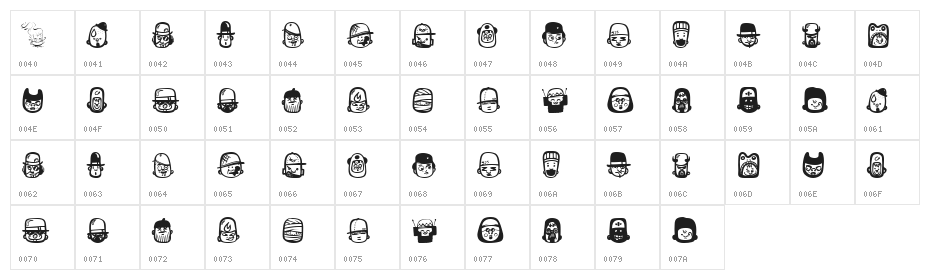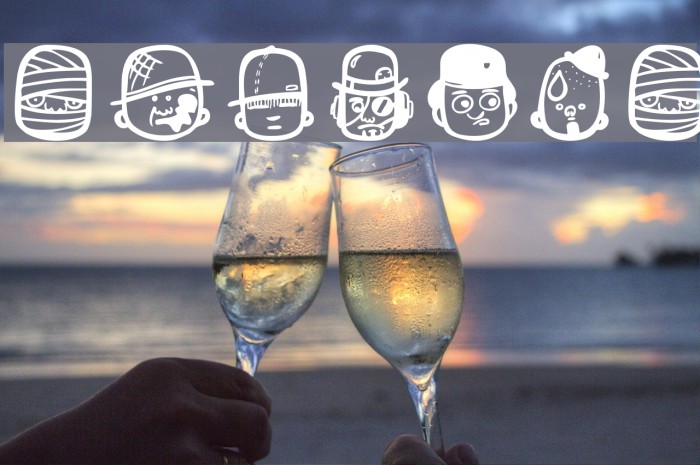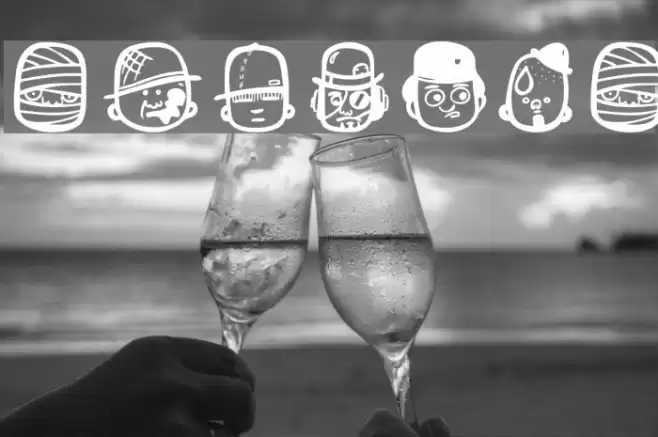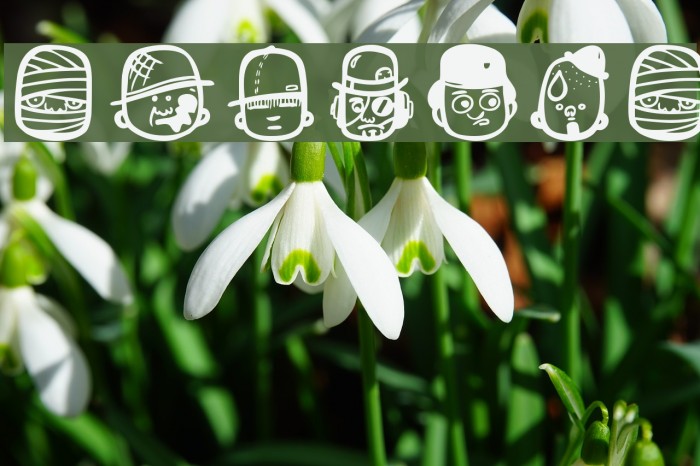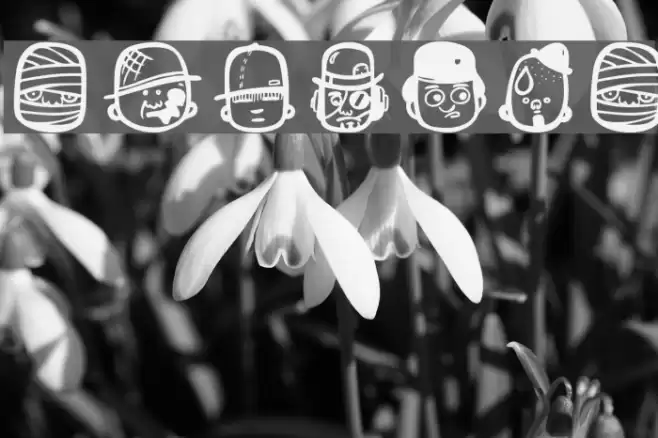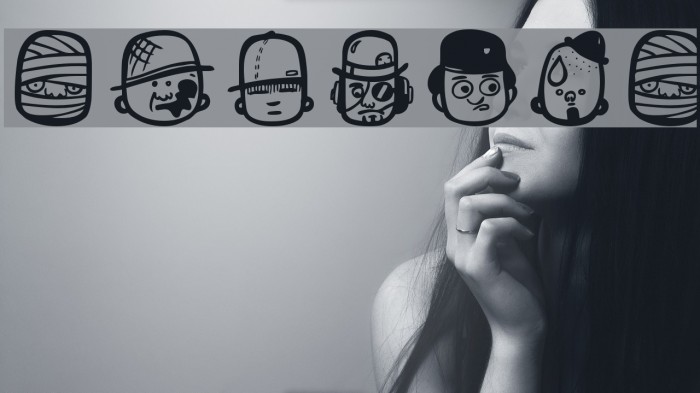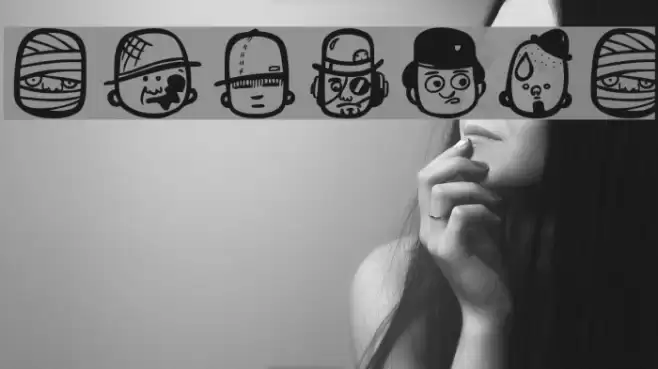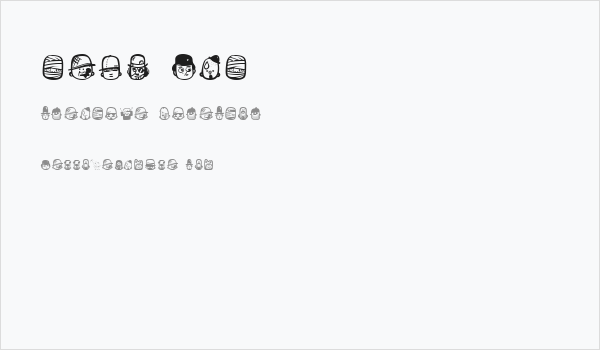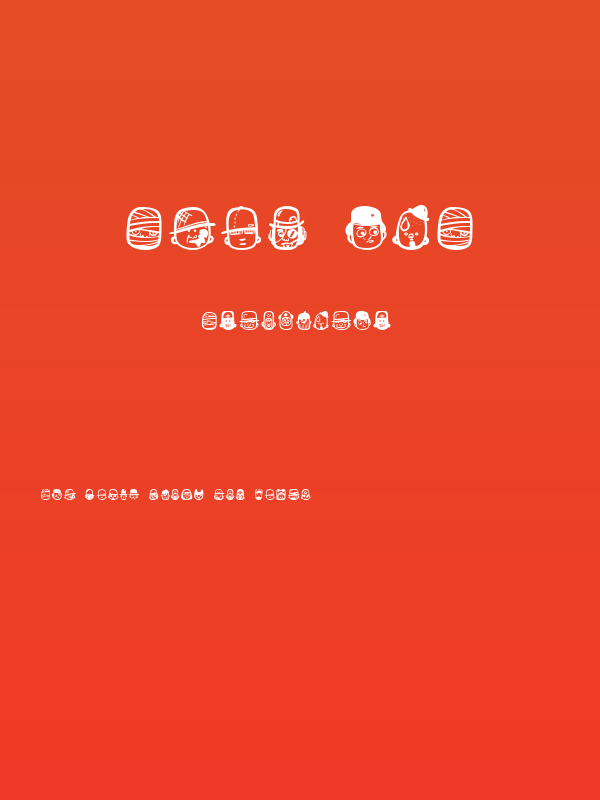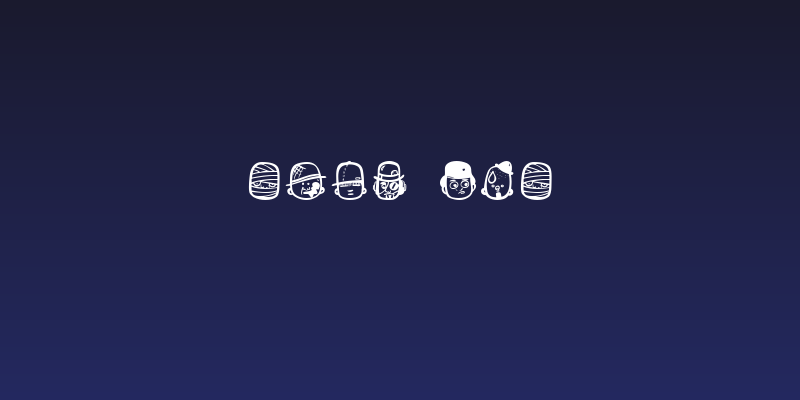
teubéHat Font
teubéHat Description
A highly decorative and playful font where each character is represented by a unique cartoon-style face or head, featuring bold outlines and varied expressions, giving a hand-drawn, whimsical appearance.
| Overall Style | Decorative, Playful, Whimsical |
| Use Case | Logos, Headlines, Posters, Children’s materials |
| Proposed Projects | Children’s books, party invitations, comic titles, playful branding, posters, educational materials. |